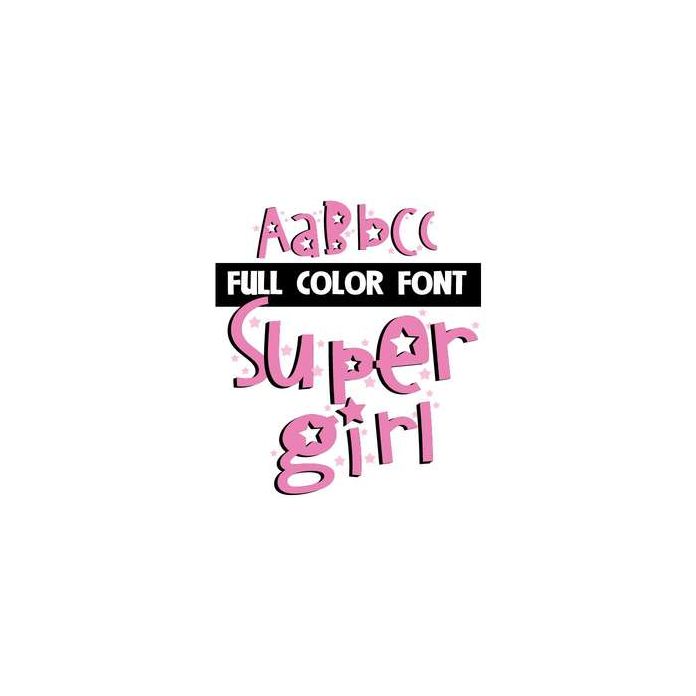
This full-color font features pink letters with stars throughout. This font works best for titles, displays, posters and more. Please note color fonts will show as black in non compatible programs. This font type is compatible with Silhouette Studio.